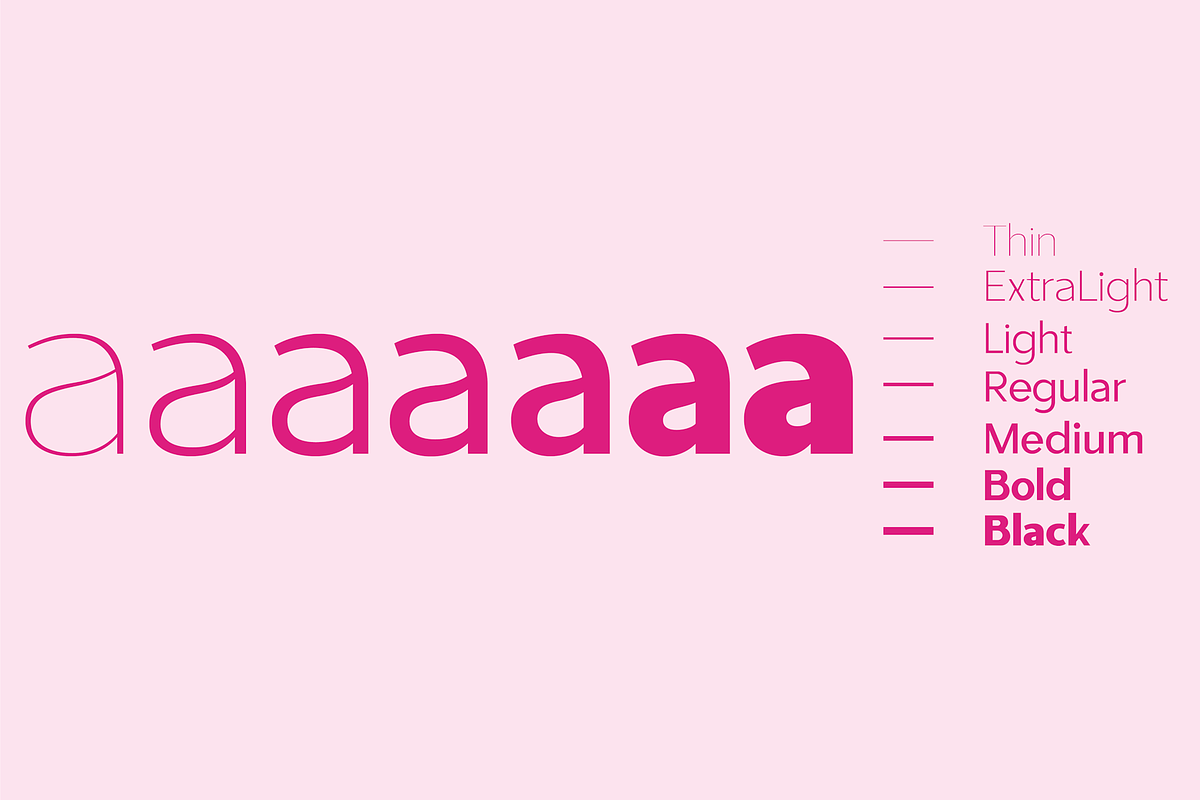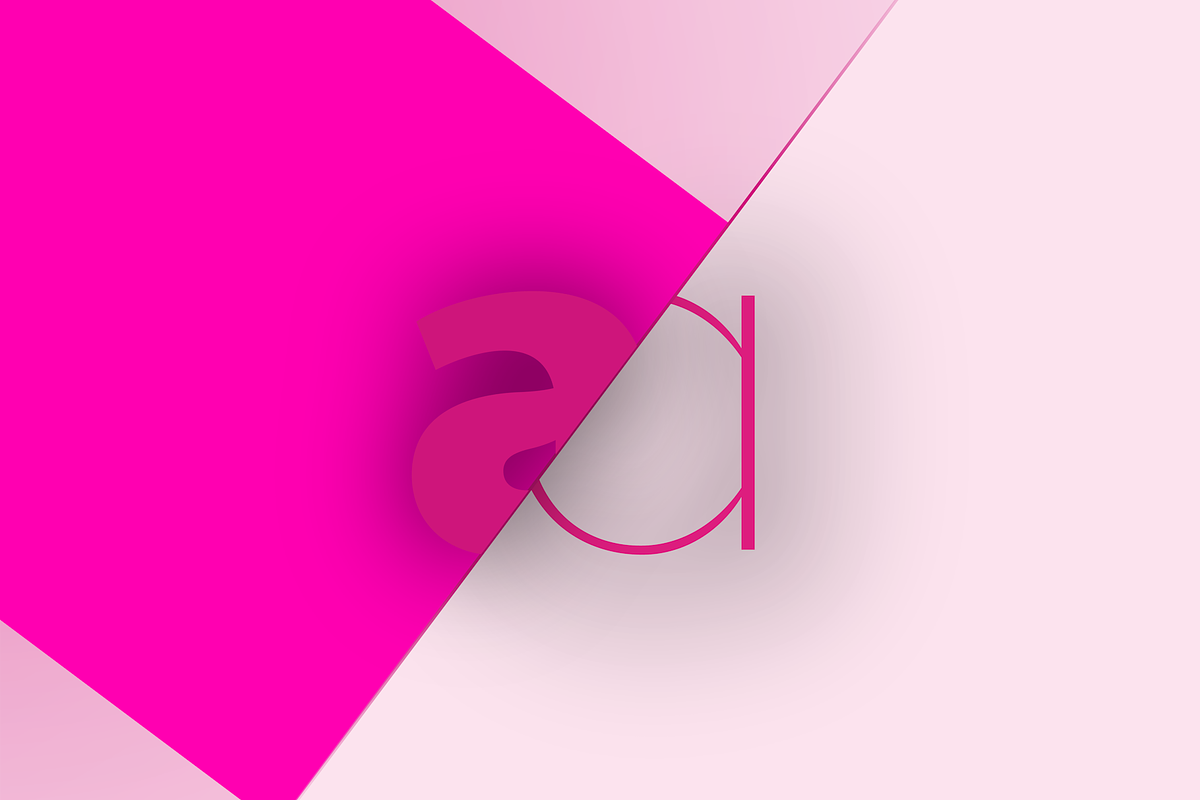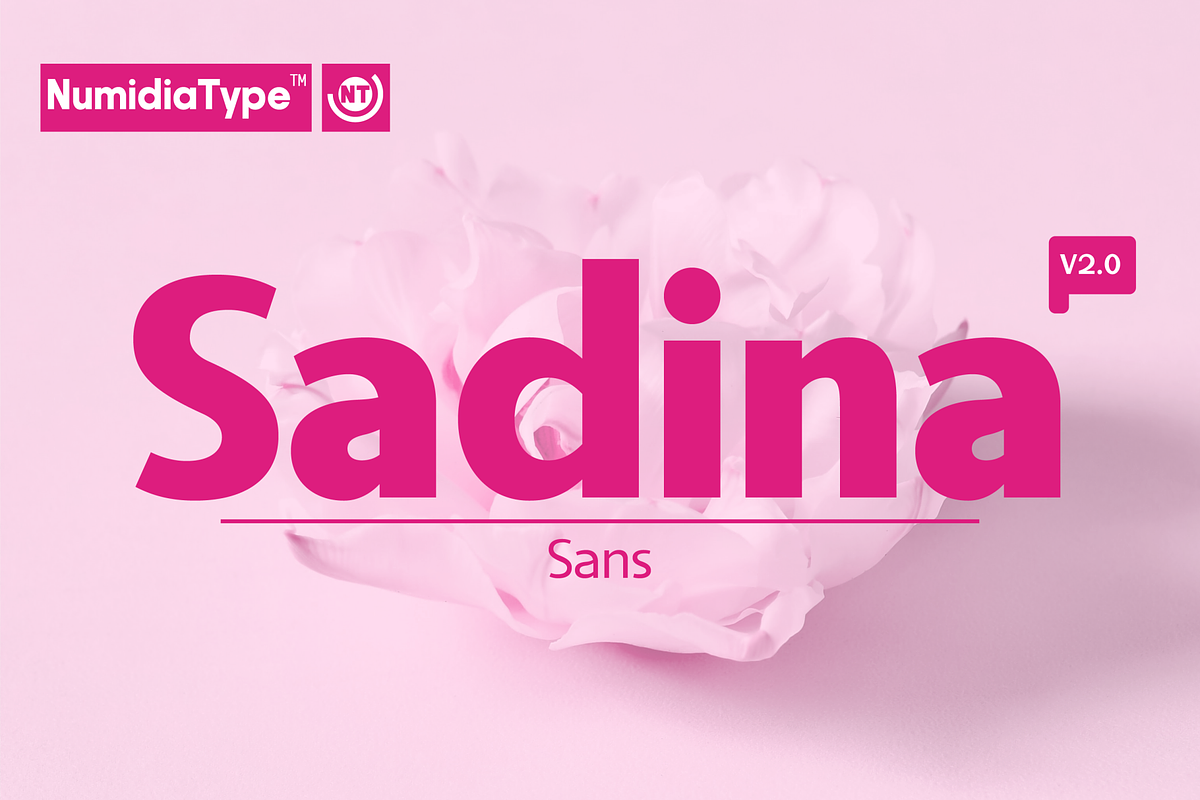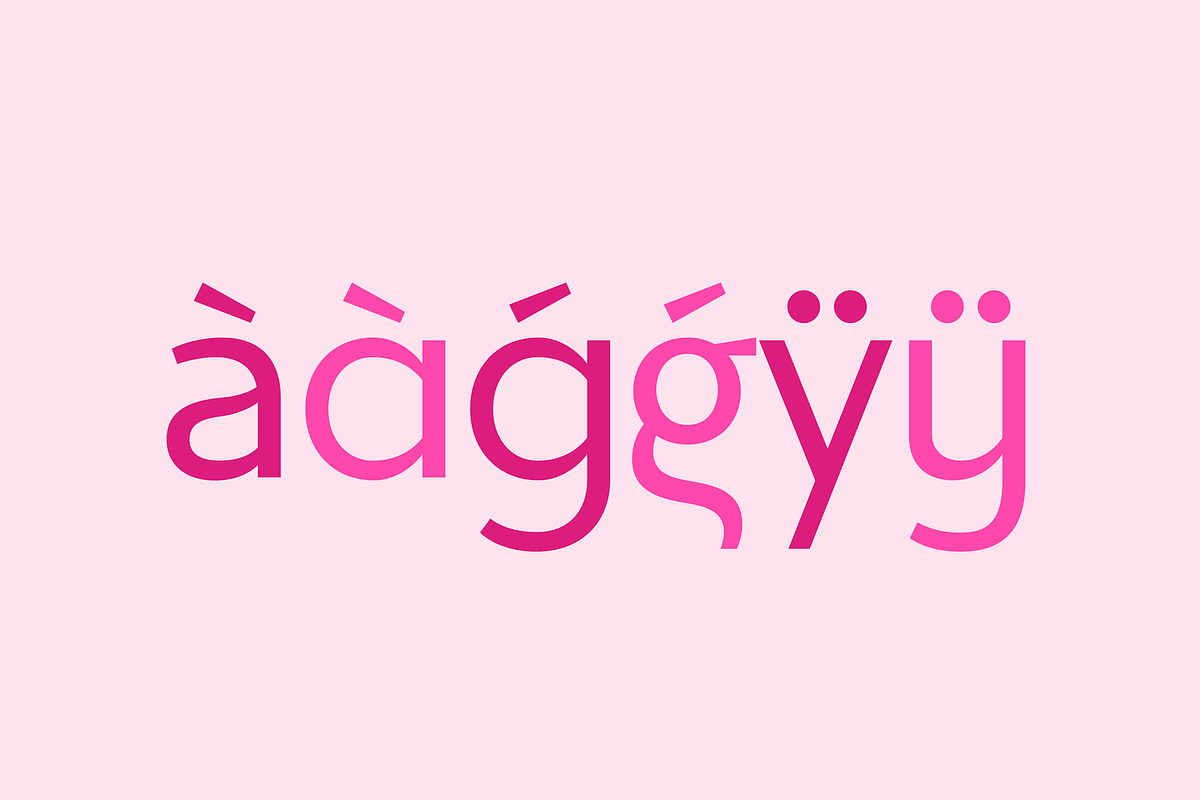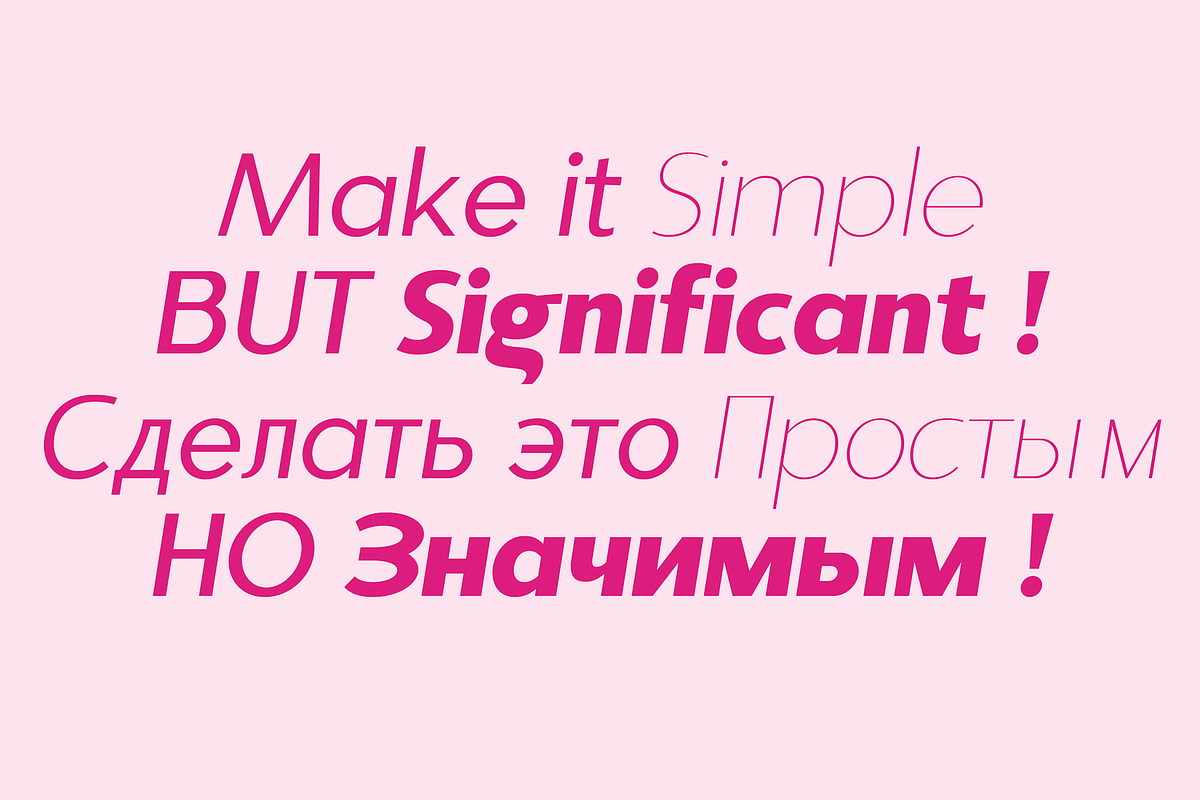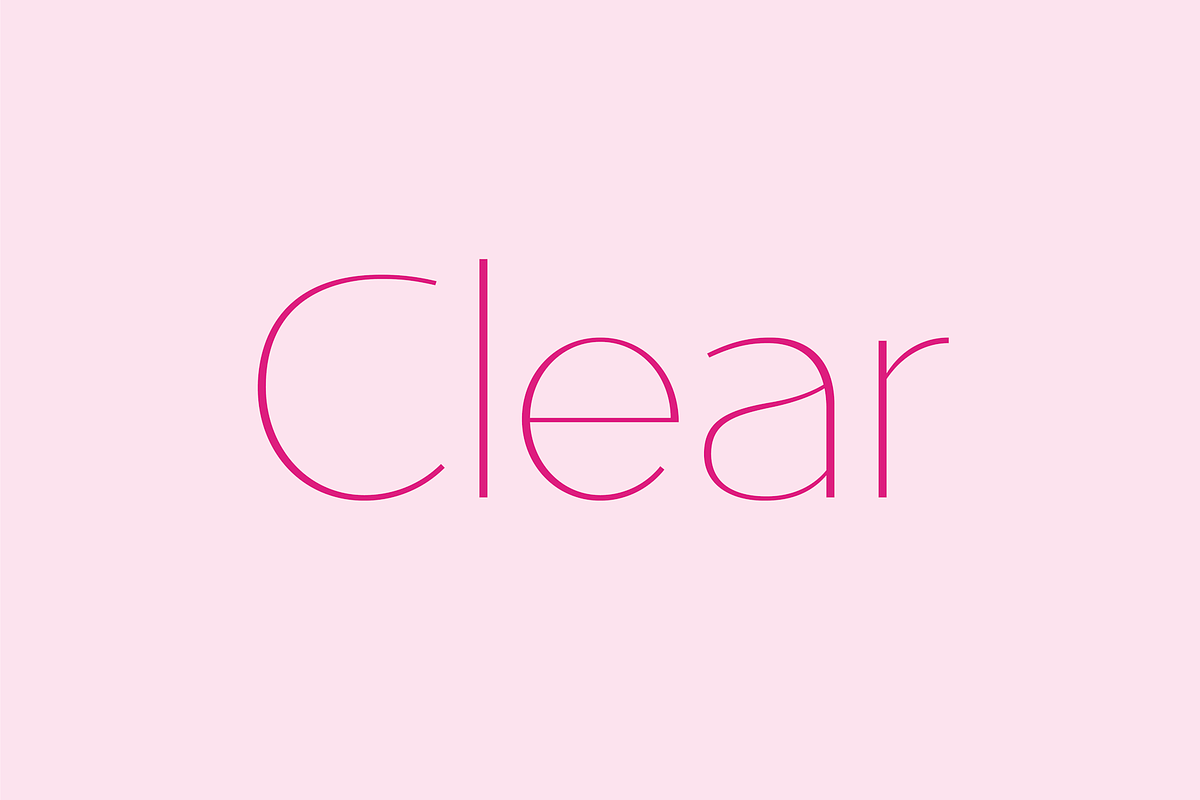
Sadina
Sadina™ is a versatile geometric sans-serif font designed for both modern and classic aesthetics. Its balanced design makes it suitable for a wide range of applications, from branding and marketing materials to web design and user interfaces. The font's high contrast and clean lines contribute to its professional and legible appearance. Sadina™ supports Western European and Cyrillic languages, expanding its usability across different regions.